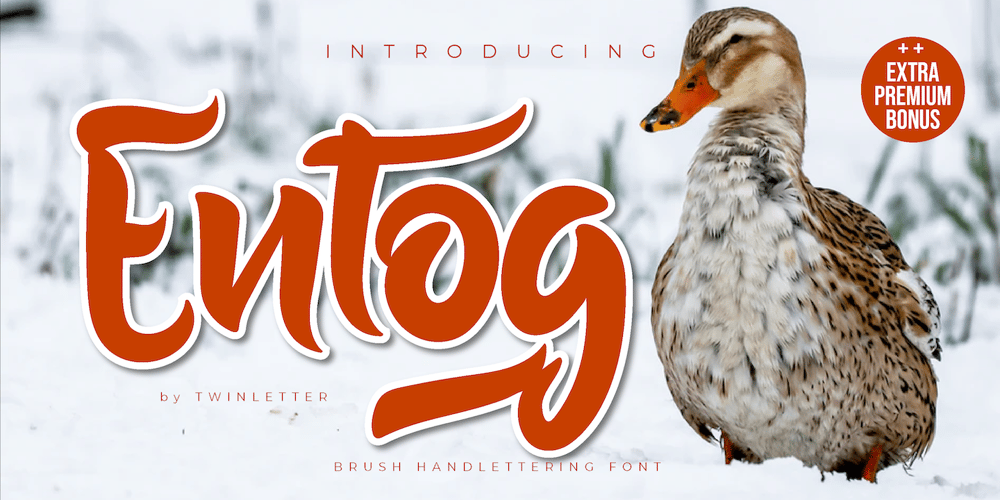
Entog Font Family was designed by Rozikan and published by Twinletter. Entog contains 1 styles and family package options. This font offers beautiful abstract typographic harmony for a wide variety of design projects, including natural handwriting in digital form for designs, quote designs, for social media business designs, advertisements, trademarks, promotional banners, posts, posters, signatures, and all. the design requires handwriting or whatever design you want.This font is equipped with uppercase, lowercase, numbers, punctuation marks, swhases and several variations on each character including multi-language.This font is best suited for open type friendly applications. How to get alternative glyphs from open type fonts: http://adobe.ly/1m1fn4YPUA Character Code – Fully accessible without additional design software.We hope you enjoy this font. Feel free to send whatever message you want to convey.Thank youRegardsTwinletter